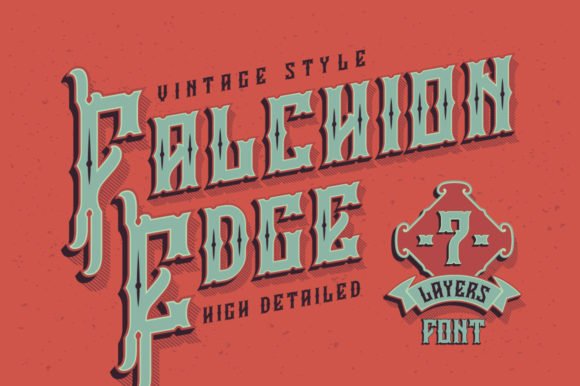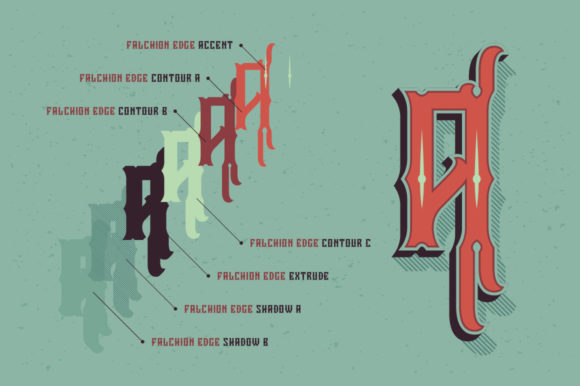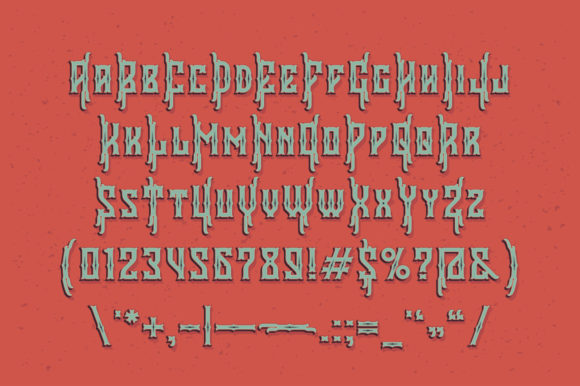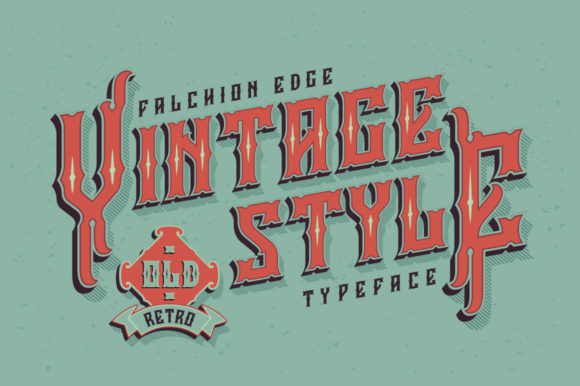
The Perfect Stroke of Genius: Unlocking the Power of Falchion Edge Font
Have you ever been in the midst of a design project, struggling to find the perfect font that captures the essence of your creative vision? You scroll through countless options, but nothing seems to stand out. Then, like a ray of sunshine breaking through the clouds, you stumble upon a font that makes your heart skip a beat. This is exactly what happens when you discover the Falchion Edge Font.
This highly detailed, assertive, and vintage styled blackletter font is a game-changer for designers. With its uniquely shaped letters, it effortlessly adds a distinct touch to any creation. Whether you’re crafting a logo, a poster, or a book cover, the Falchion Edge Font is sure to make a lasting impression. Its value lies in its versatility, making it a must-have for designers who crave a touch of elegance and sophistication in their work.
Falchion Edge Font Key Features
- Unique Characteristics: Features a unique blend of medieval and futuristic elements, making it ideal for fantasy, sci-fi, and historical designs.
Falchion Edge Font Review
As a designer, I’ve had the chance to work with a wide variety of fonts, and I have to say, Falchion Edge is an interesting one. ✨ It’s got a unique, hand-drawn feel that sets it apart from more common sans-serif fonts. The subtle flair at the edges of each letter adds a touch of elegance that’s hard to find in other fonts.
One of the things that really stands out about Falchion Edge is its versatility. ✨ It works well in a range of contexts, from logos and branding to body text and even headings. The font is available in a range of weights, which makes it easy to find the perfect fit for your design.
- Unique, hand-drawn feel
- Subtle flair at the edges of each letter
- Highly versatile
- Available in a range of weights
- May not be suitable for small text sizes due to its intricate details
- Can be difficult to read for those with visual impairments
Overall, I think Falchion Edge is a great addition to any designer’s toolkit. ✨ While it may have some limitations, its unique feel and versatility make it a great choice for a wide range of projects.
For the best results, use the Falchion Edge Font for titles, headings, and emphasis. It’s ideal for creating a bold and edgy look in designs.
Some common use cases include:
- Poster design
- Brochure design
- Infographic design
- Business card design
Alternatives to Falchion Edge Font
The Falchion Edge Font is a unique, modern sans-serif font known for its geometric shapes and futuristic feel. However, designers may be looking for alternatives that offer similar characteristics but with a twist. Here are four options to consider: